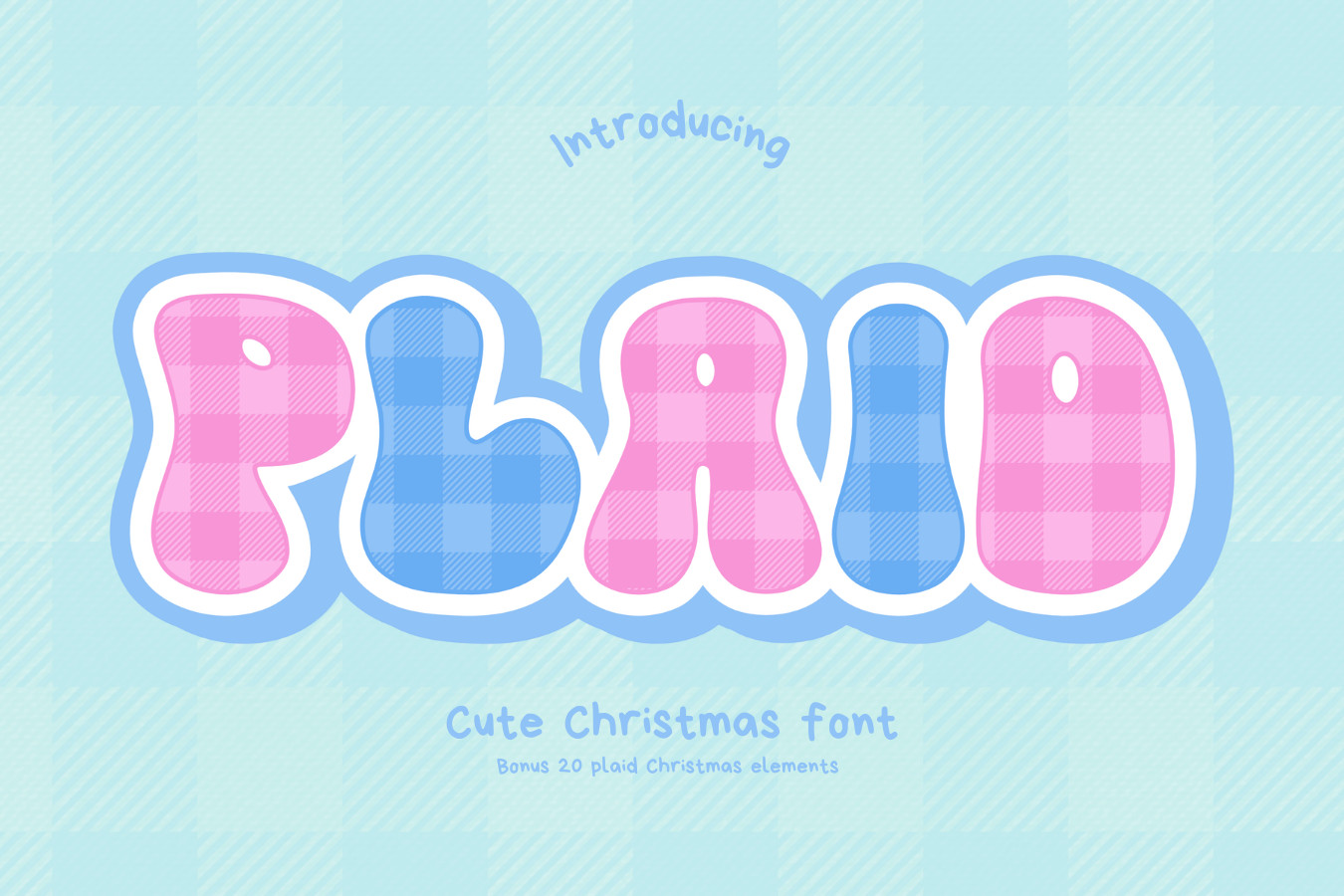
Plaid Chritmas Font
Plaid is a festive Christmas font that embodies the holiday spirit. With classic plaid patterns adorning each character, it brings the cozy warmth of the season to your designs. Perfect for holiday cards, banners, and marketing materials, this font adds a timeless and cheerful touch to your typography, capturing the joy of Christmas.